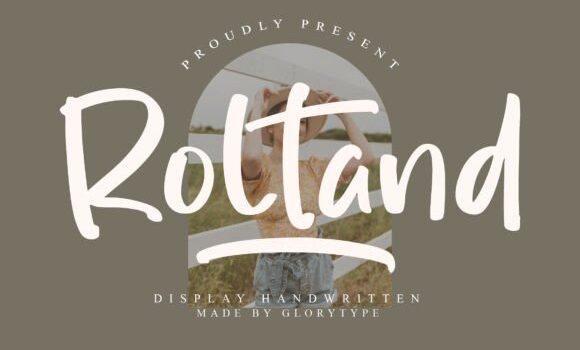
roltand
Roltand Font – Free Download Introduction to Roltand Font Roltand is a playful and stylish font with a youthful spirit. 📸 Preview Gallery 6 images 📌 Product Name Roltand Font 👤 Author Glorytype Studio 📂 Category Explore ⬇️ Download Roltand